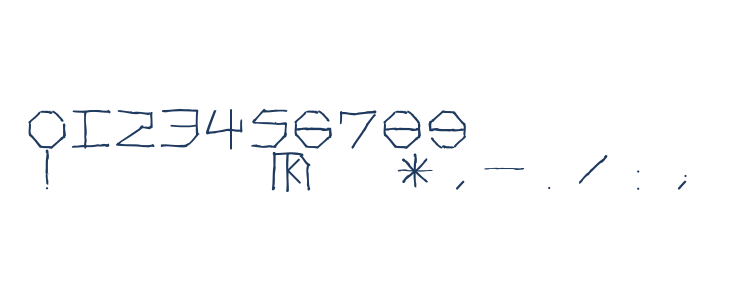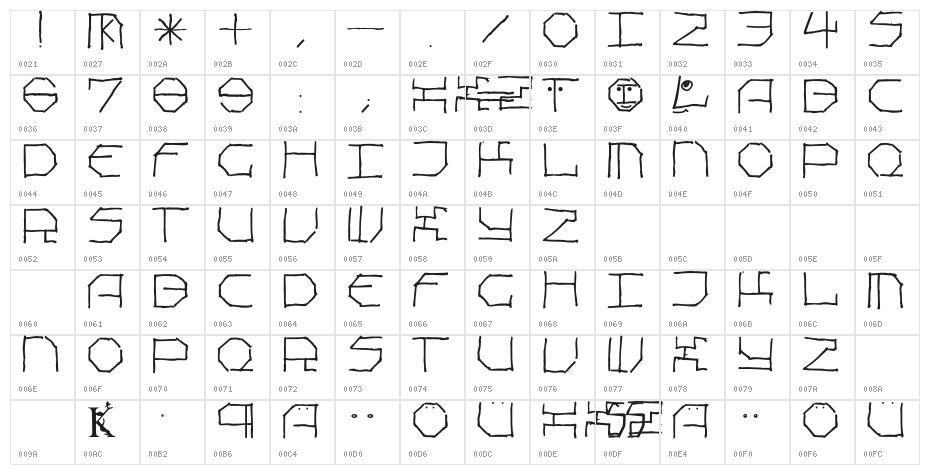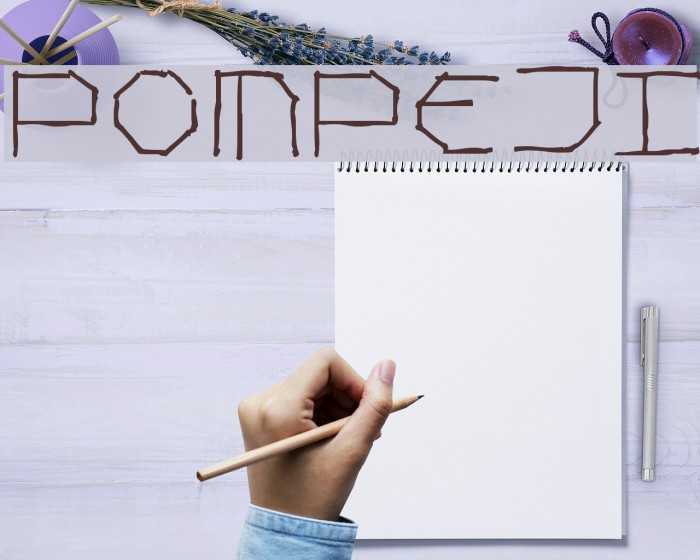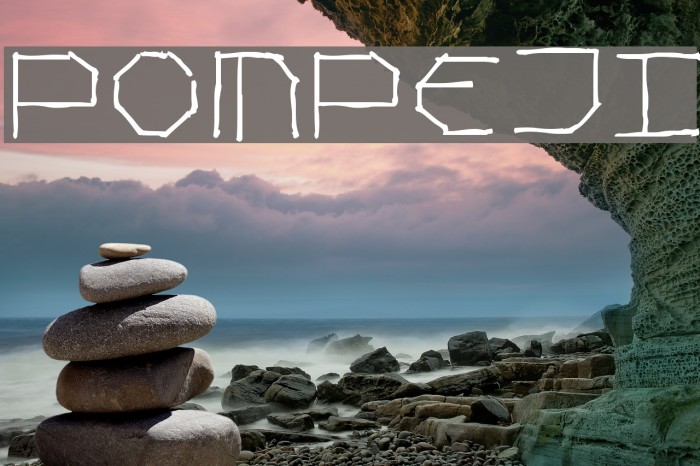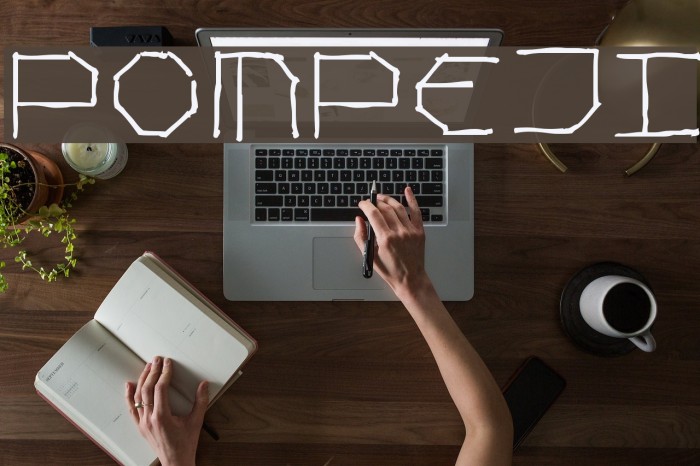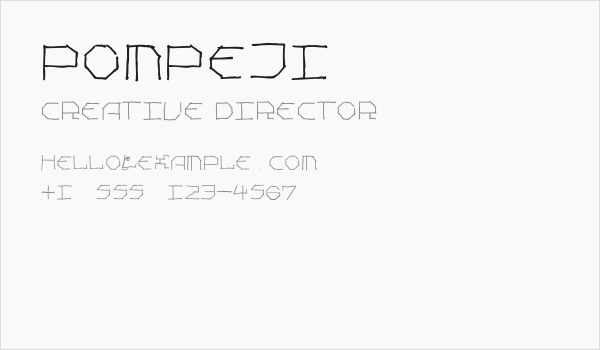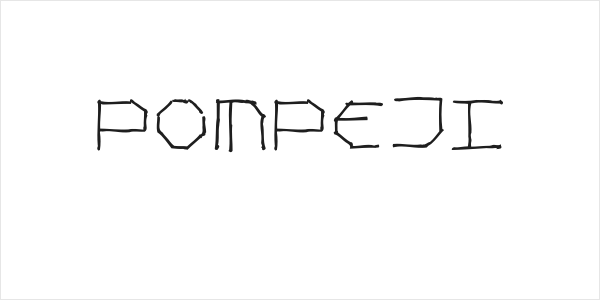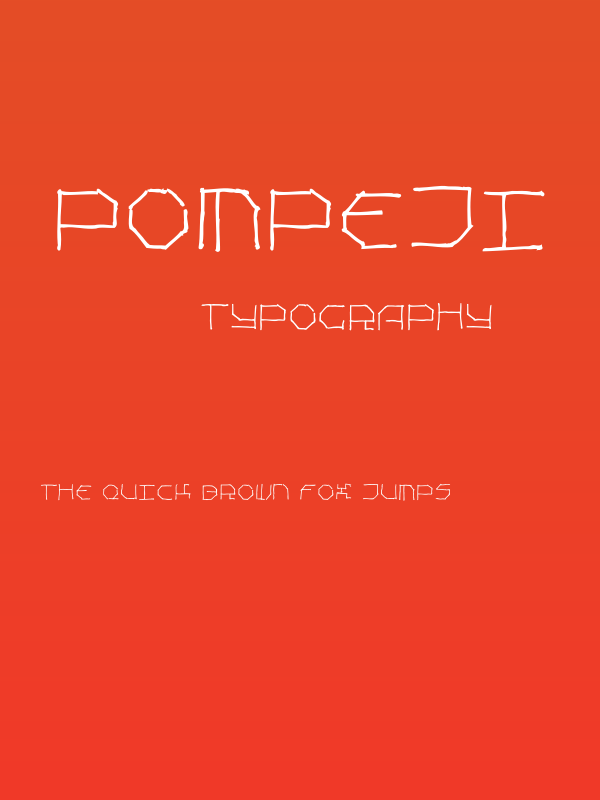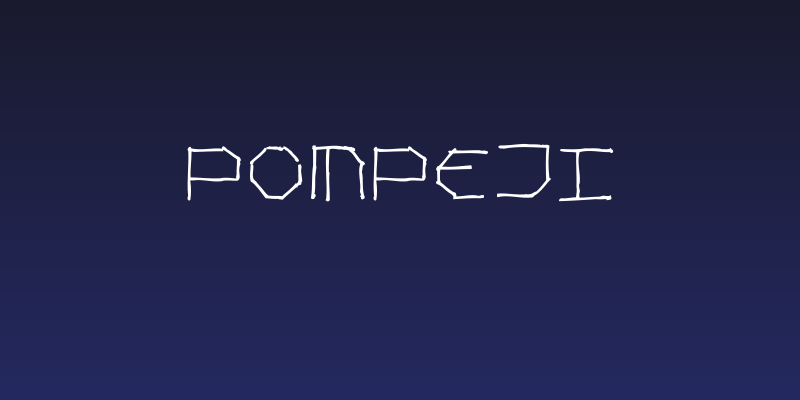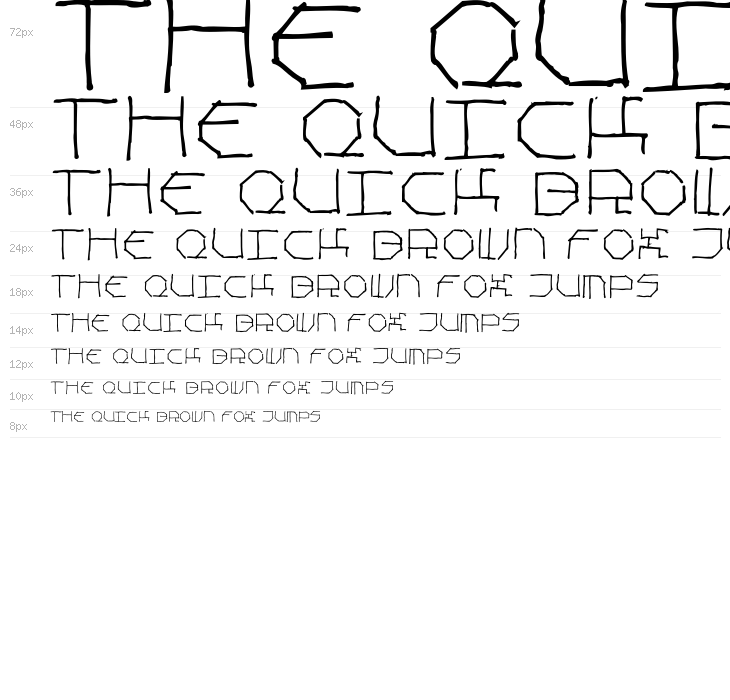
Pompeji Font
Pompeji Description
This font features a unique, hand-drawn style that mimics ancient inscriptions. The characters are composed of angular, geometric lines with a rough, textured appearance, reminiscent of stone carvings. The uppercase and lowercase letters share a consistent design, maintaining a uniform height and width. Numbers and special characters follow the same stylistic approach, ensuring a cohesive look across all glyphs. The font's distinct appearance makes it ideal for projects that require an ancient or historical aesthetic, providing a sense of authenticity and character.
| Proposed Projects | Ideal for historical-themed designs, archaeological publications, or any project seeking an ancient aesthetic. |